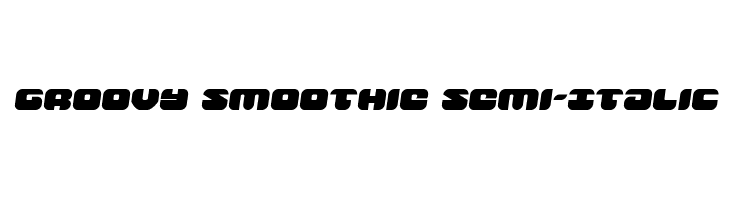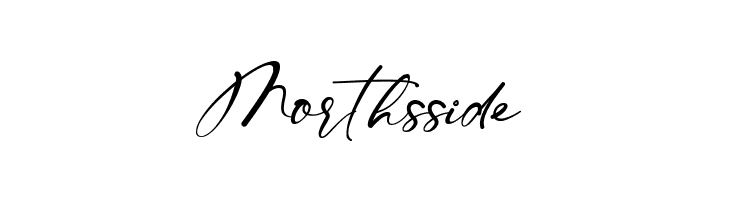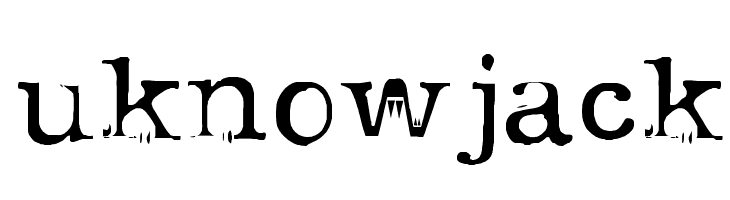
A dynamic and elegant script font with flowing, expressive letterforms.
Hand-drawn garden doodle dingbat font with playful, organic motifs.
A bold, italicized font with a futuristic and dynamic style.
A bold, textured font with a rugged, hand-crafted appearance.
An elegant, flowing script font with a handwritten style.
A bold, distressed font with a grunge aesthetic and vintage appeal.
A tall, elegant serif font with sharp serifs and modern appeal.
A bold, geometric font with decorative elements and minimal contrast.
A modern, cursive script font with a smooth, flowing style.
A futuristic, geometric font with a sleek and modern design.